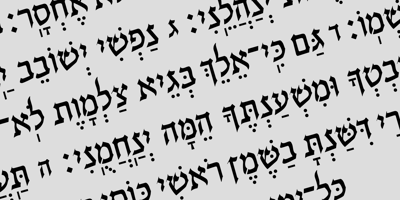
Hebrew Gigi Std
Hebrew Gigi Std font
Hebrew Gigi Std Font Family was designed by Sami Artur Mandelbaum and published by Samtype. Hebrew Gigi Std contains 1 styles and family package options. Beautiful font, good for posters and small books and folders.This is a complete font with all diacritic marks (Nikud and Taamim) and also shevana, kamatz katan, dagesh hazak and holam chaser.